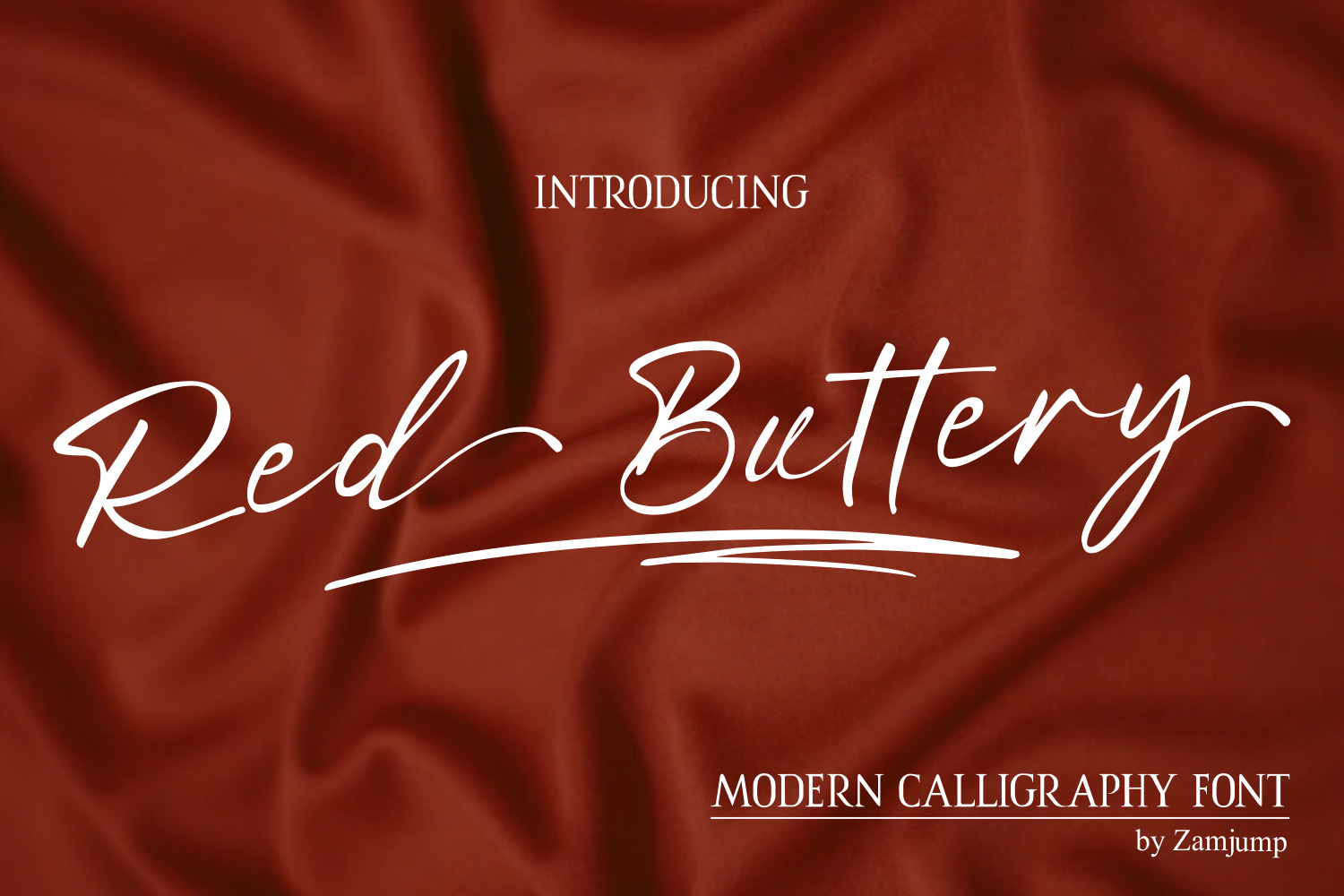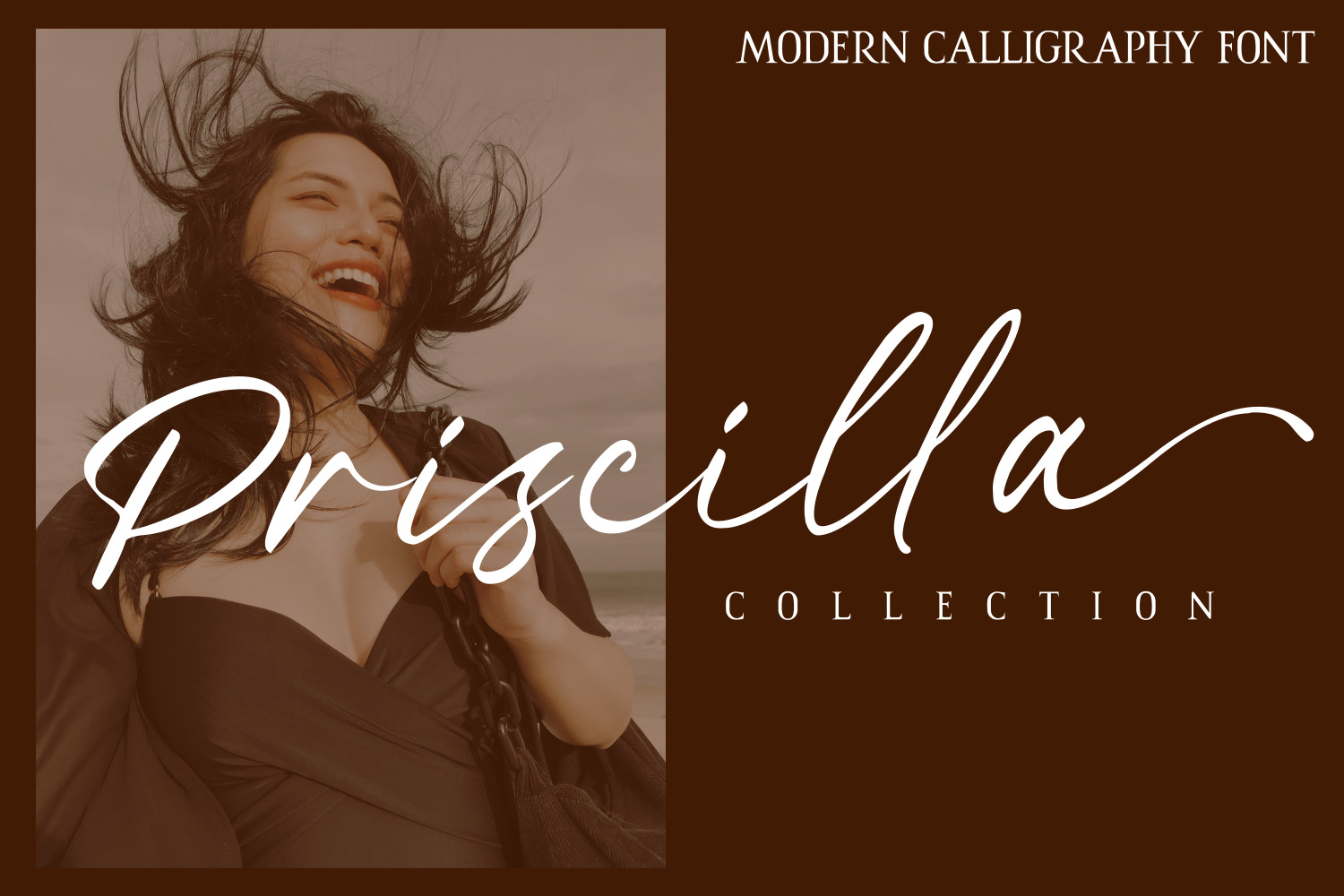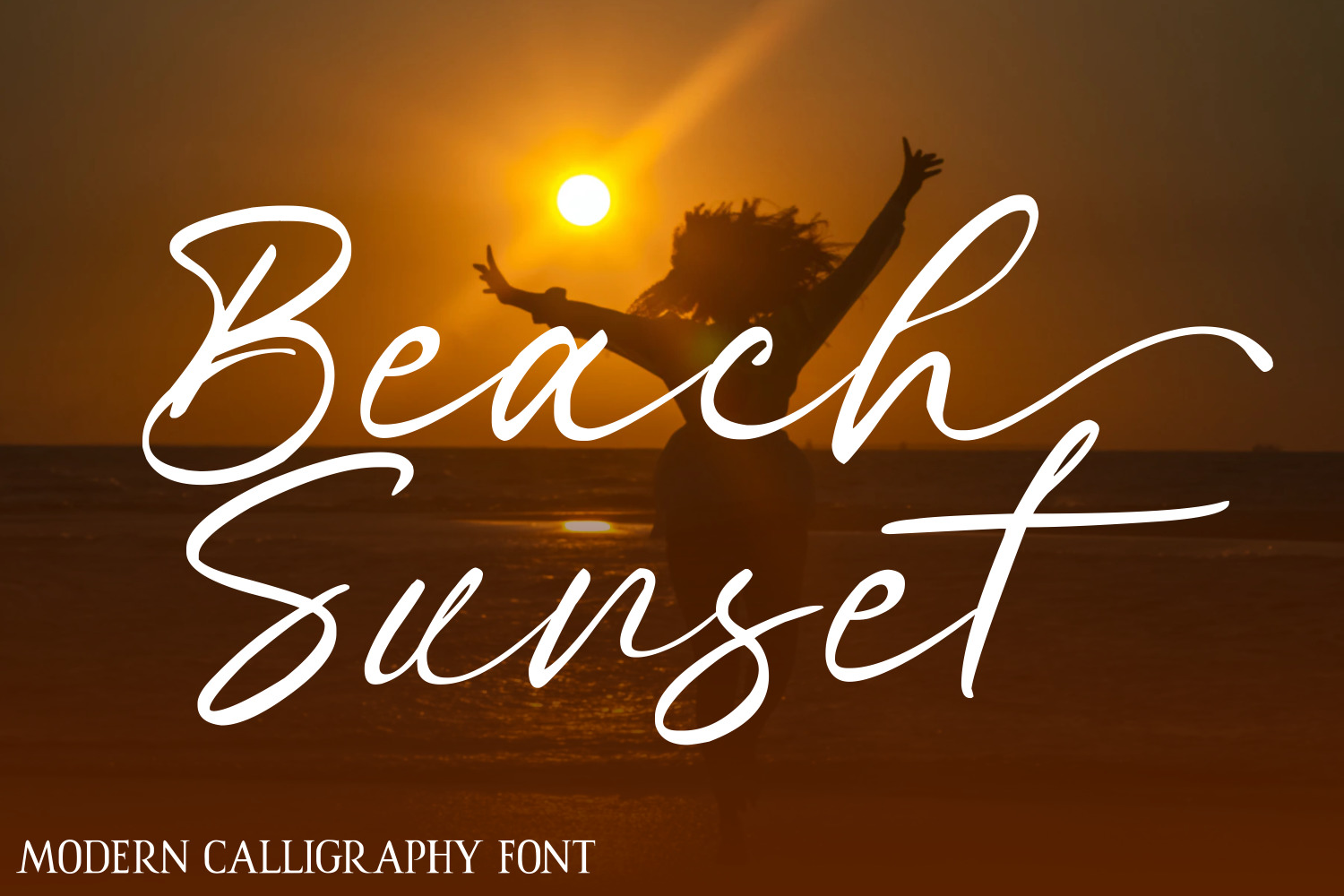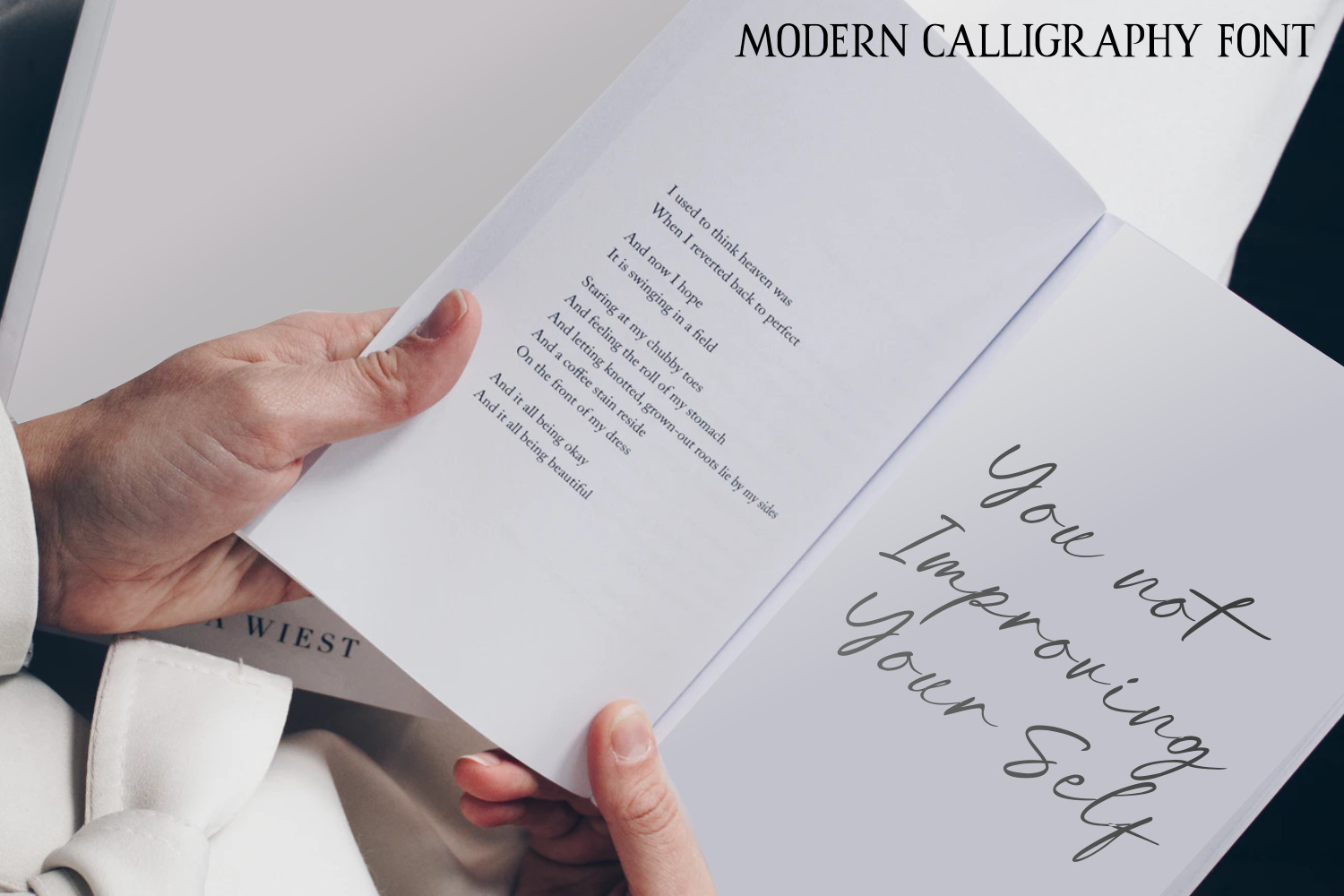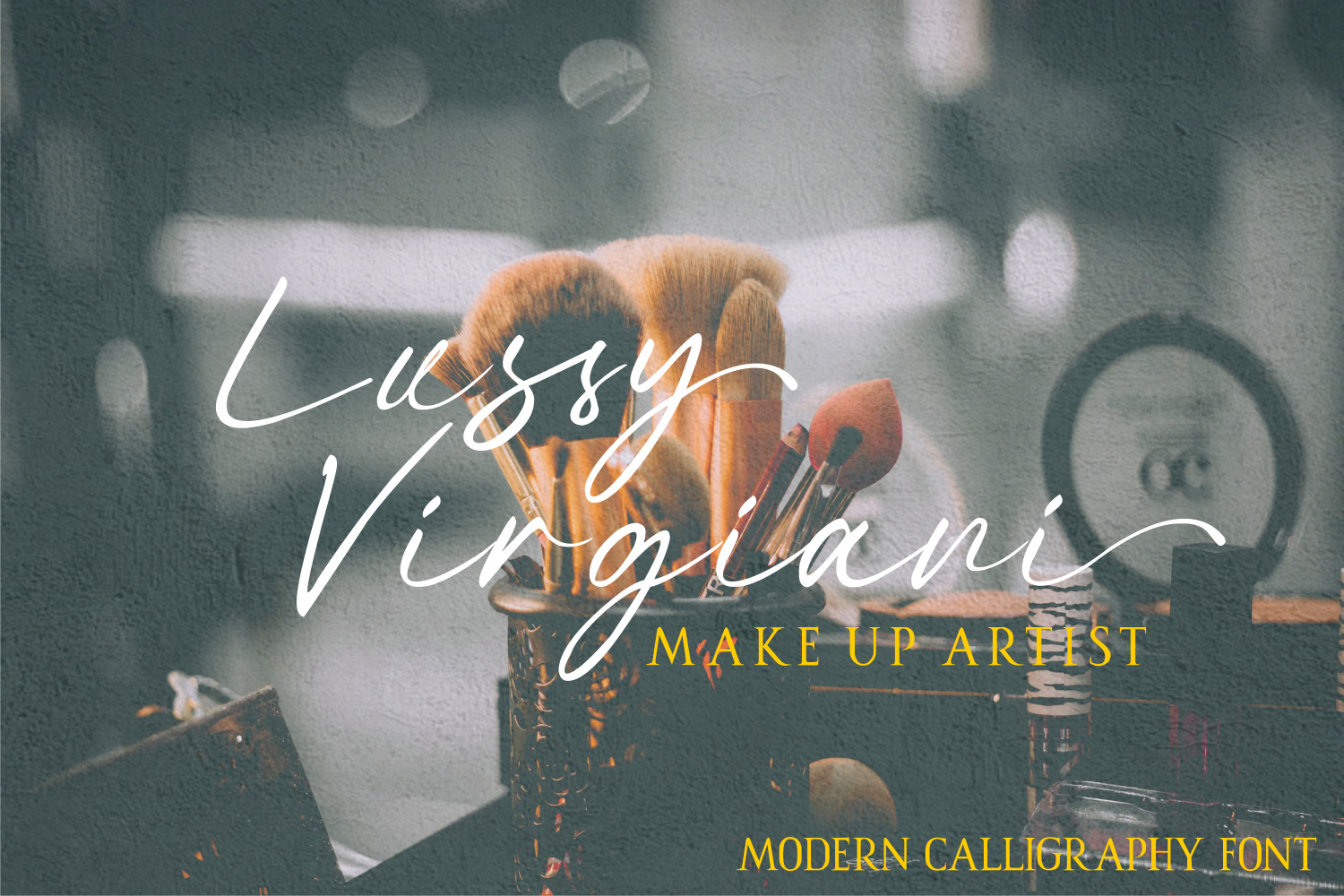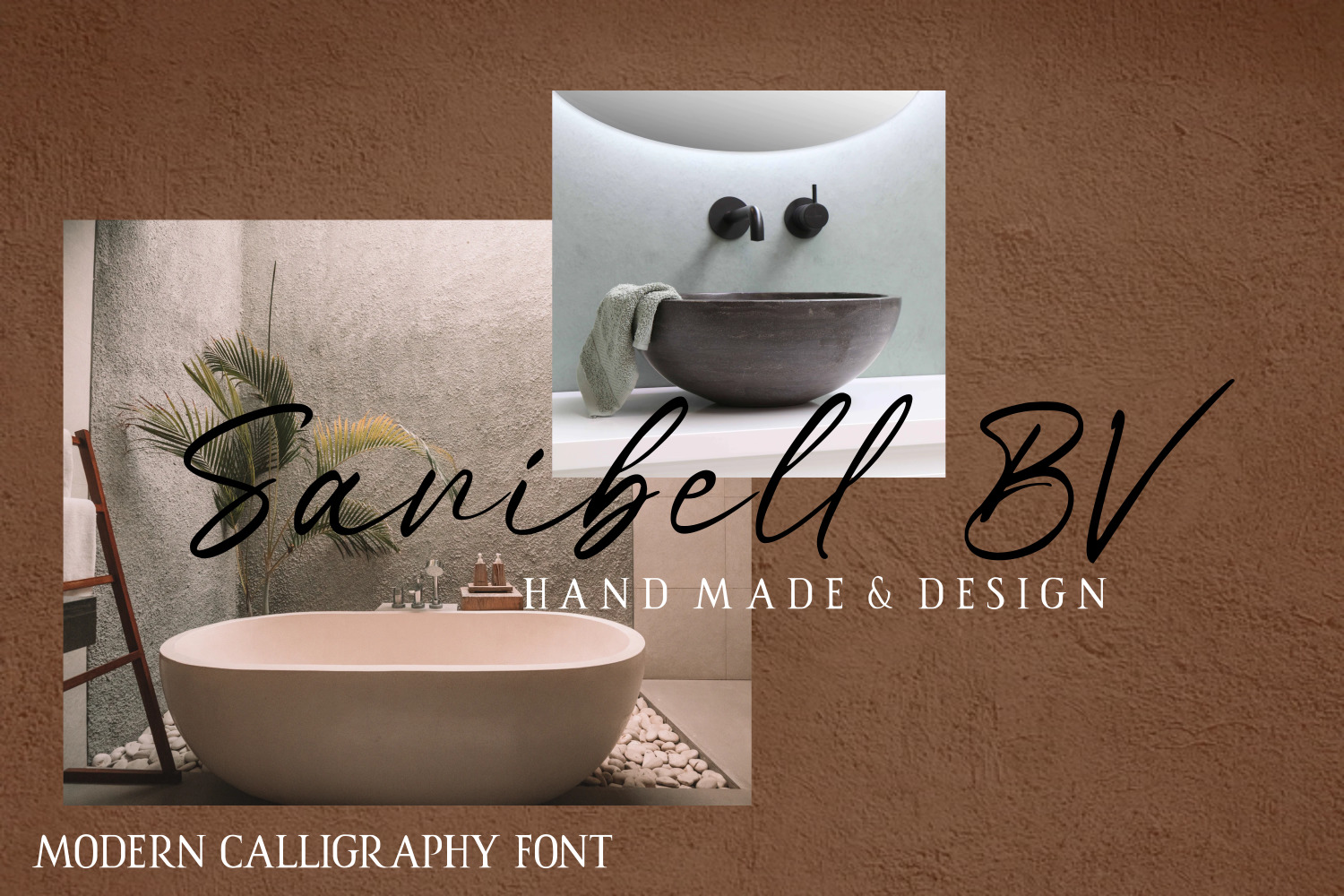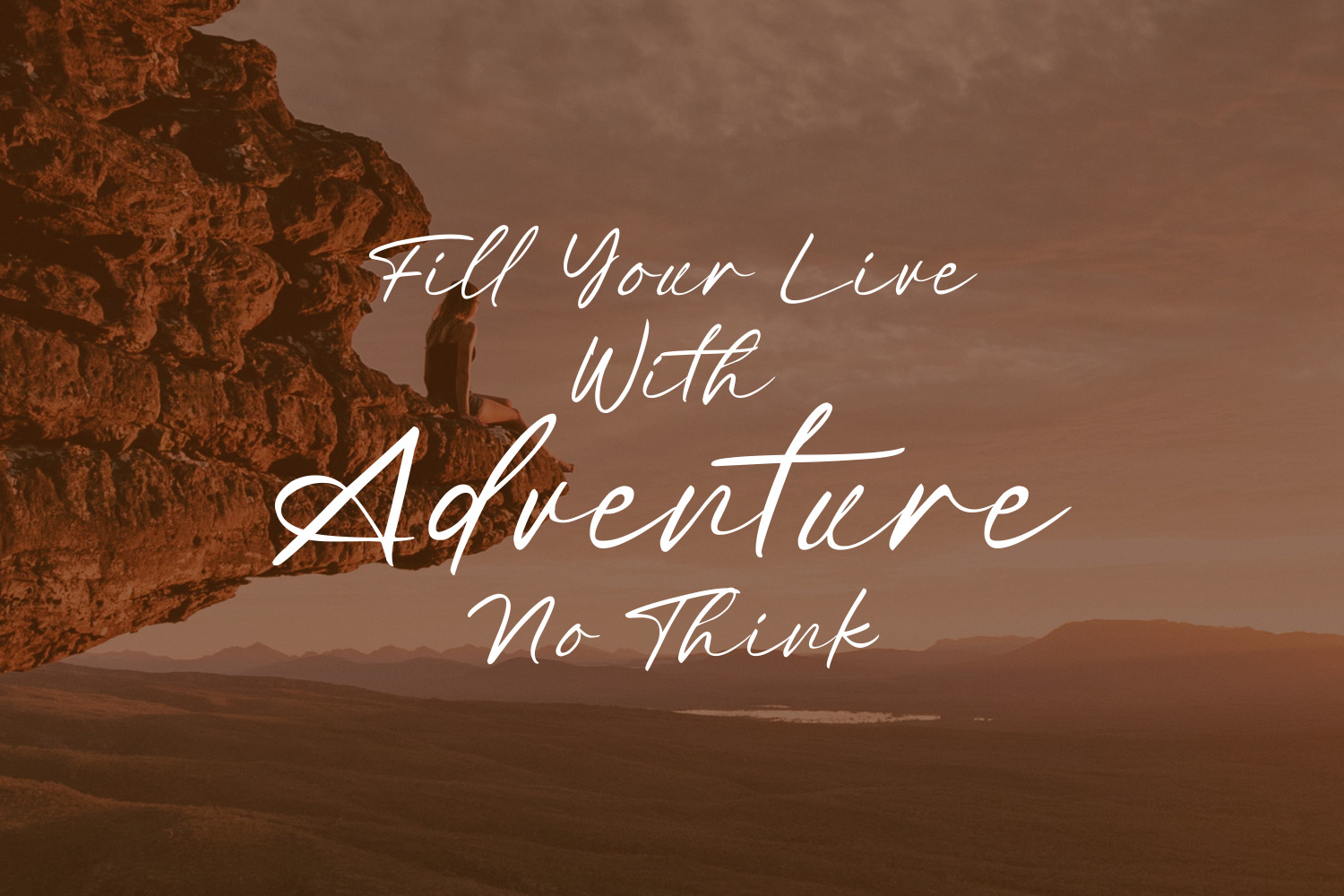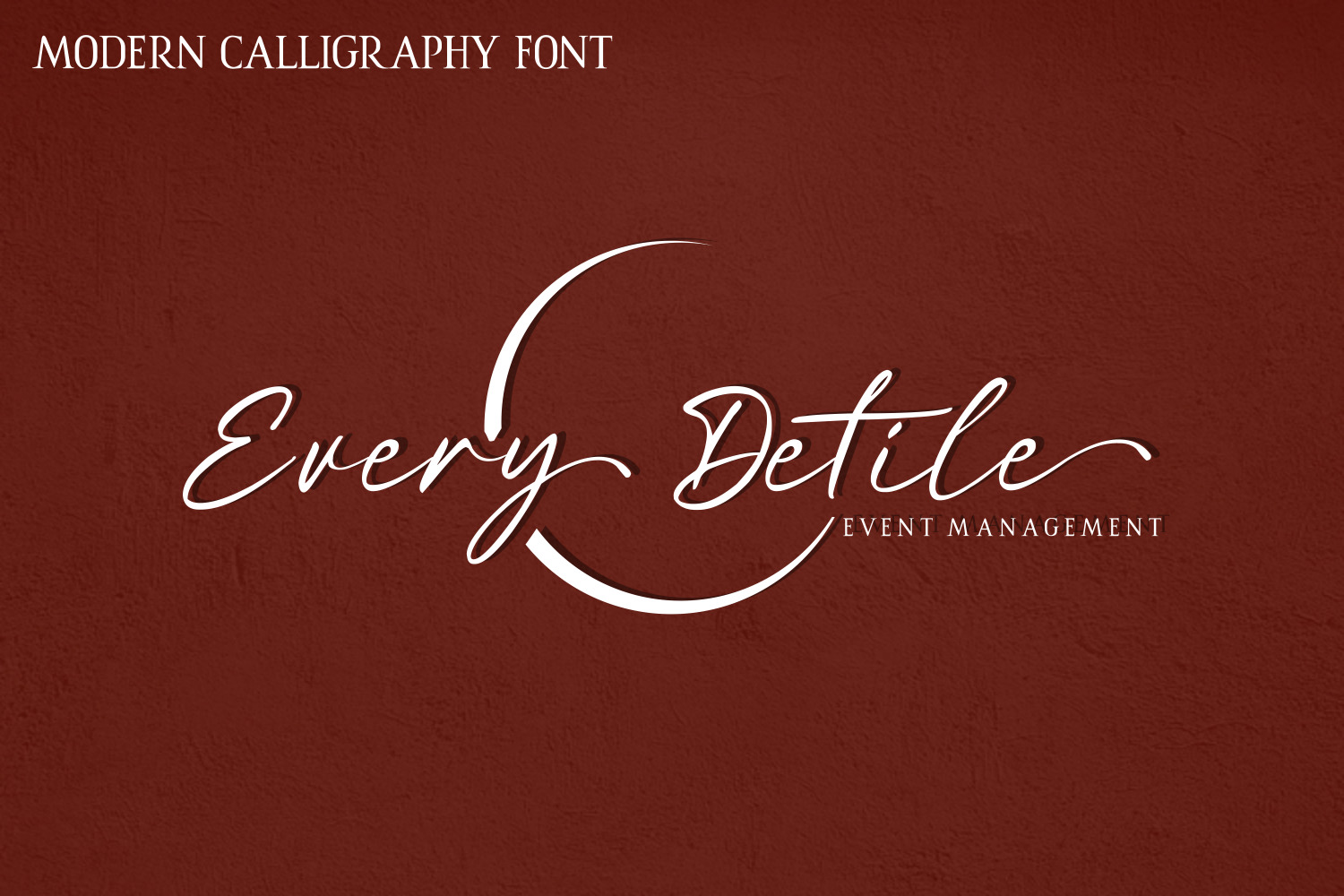
Red Buttery Font
Red Buttery is a modern Calligraphy font. I hope this font is perfect to make signature logo branding and watermark for photography studio. wedding invitations, Magazine Covers, Classic themed scriptwriting,
Red Buttery includes a full set of upper and lower case hand letters, numbers, assorted punctuation marks. All lowercase letters include start and end strokes, providing a realistic handwriting style.